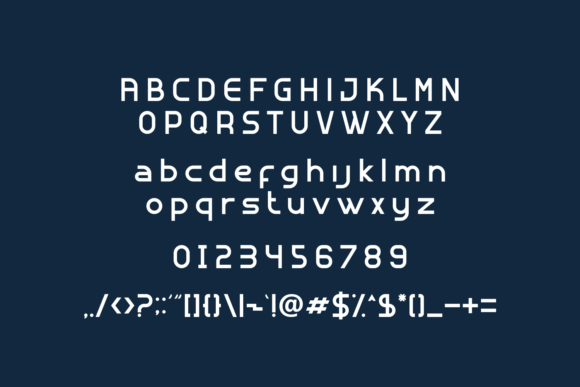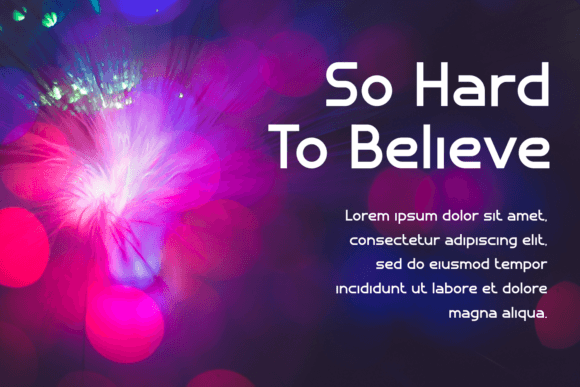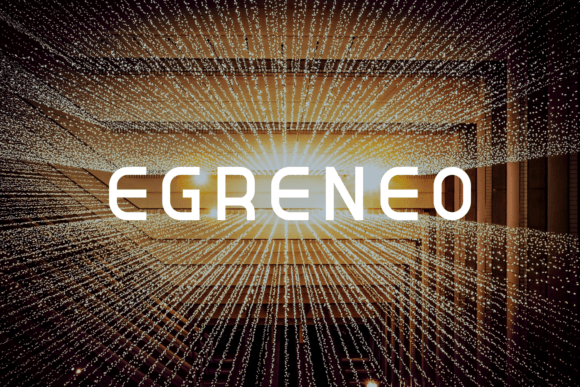
Introduction to Egreneo Font
Have you ever been stuck in the middle of a creative project, staring at a blank canvas or page, searching for that one design element to bring it all together? I know I have, and it’s frustrating. But what if I told you that there’s a game-changing design resource out there that can elevate any creation and make your job easier? Enter the Egreneo Font, a modern and cool sans serif font that’s about to become your new best friend.
As a designer, you understand the importance of having high-quality fonts at your disposal. The Egreneo Font is a valuable addition to any design library, offering a clean and sophisticated look that’s perfect for any creative project. And the best part? It’s available for a free download, so you can start experimenting with it right away.
With its transparent background and sleek design, the Egreneo Font is an ideal choice for designers looking to add a touch of modernity to their work. Whether you’re working on a logo, brochure, or website, this font is sure to impress.
Key Features of Egreneo Font
- High-quality, professional design ideal for creative projects and presentations.
- Features a transparent background, allowing for seamless integration with any design.
- Designed with a unique, modern aesthetic, making it perfect for designers and artists looking for a distinctive font.
Honest Review: Egreneo Font
I recently came across the Egreneo Font while searching for a free download to enhance my design resource collection. The initial impression was quite positive, with its modern and sleek aesthetic making it a great fit for my creative project.
What works well with the Egreneo Font is its versatility and high quality. The font’s clean lines and simple design allow it to seamlessly integrate with a wide range of design styles, making it an excellent addition to any design library.
- ✨ The Egreneo Font comes in a variety of weights and styles, making it easy to customize to suit your design needs.
- ✨ The transparent background option provides a seamless integration with any design element.
However, there are a few limitations to consider. The Egreneo Font may not be the best choice for projects requiring a more rustic or vintage aesthetic. Additionally, the font’s simplicity can sometimes make it difficult to read in certain contexts.
Overall, I’m quite impressed with the Egreneo Font. While it may not be suitable for every design project, its high quality and versatility make it a valuable addition to any design resource library.
Tips for Getting the Most Out of Egreneo Font
To get the most out of Egreneo Font, use it in a creative project where its unique design can shine. Consider using it in a design resource, such as a free download of a matching graphic element, to add a touch of elegance to your project.
Egreneo Font is ideal for use in various creative projects, including graphic design, web design, and print design. It’s also a great choice for designers who want to add a touch of sophistication to their designs. With its high-quality design and transparent background, Egreneo Font is a versatile and reliable design resource.